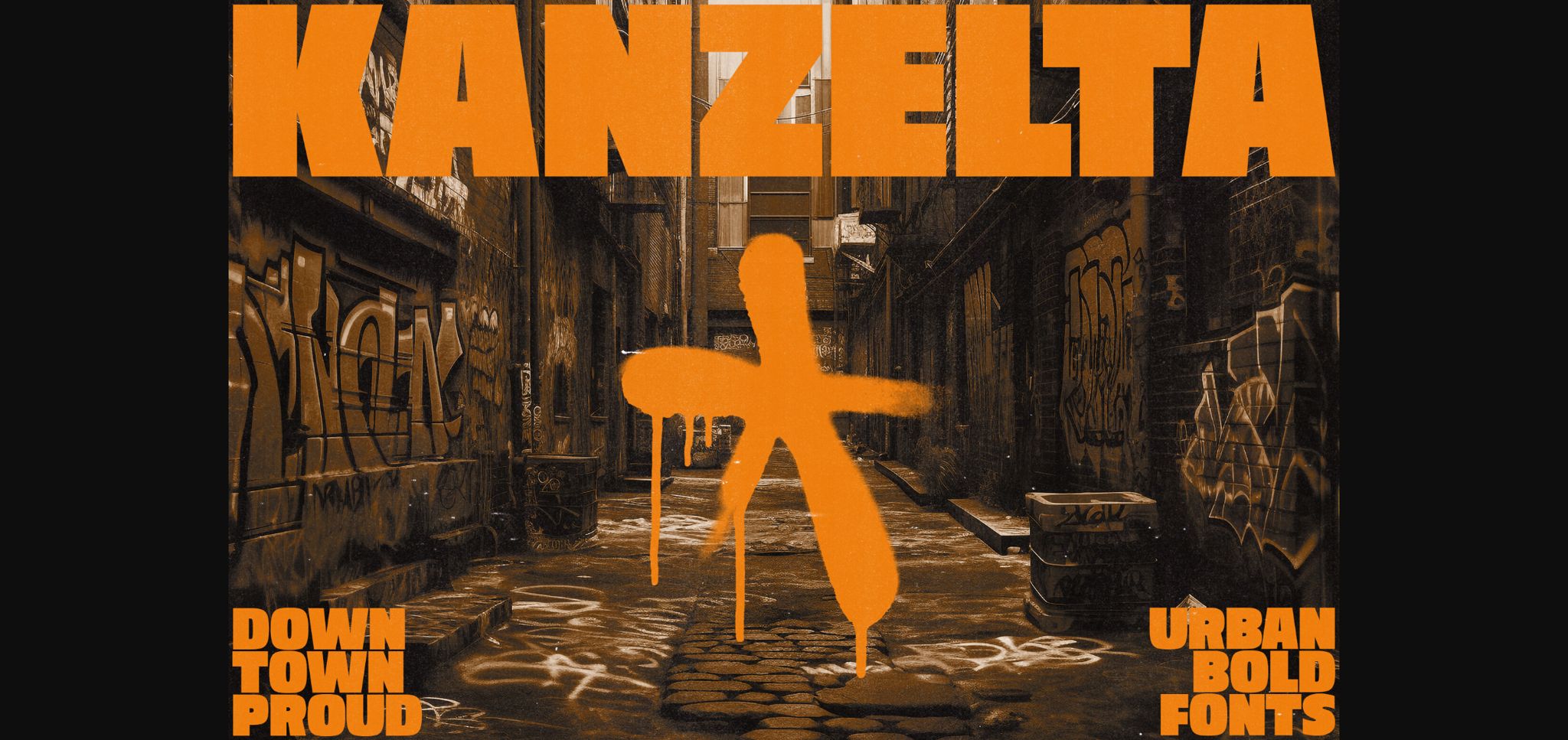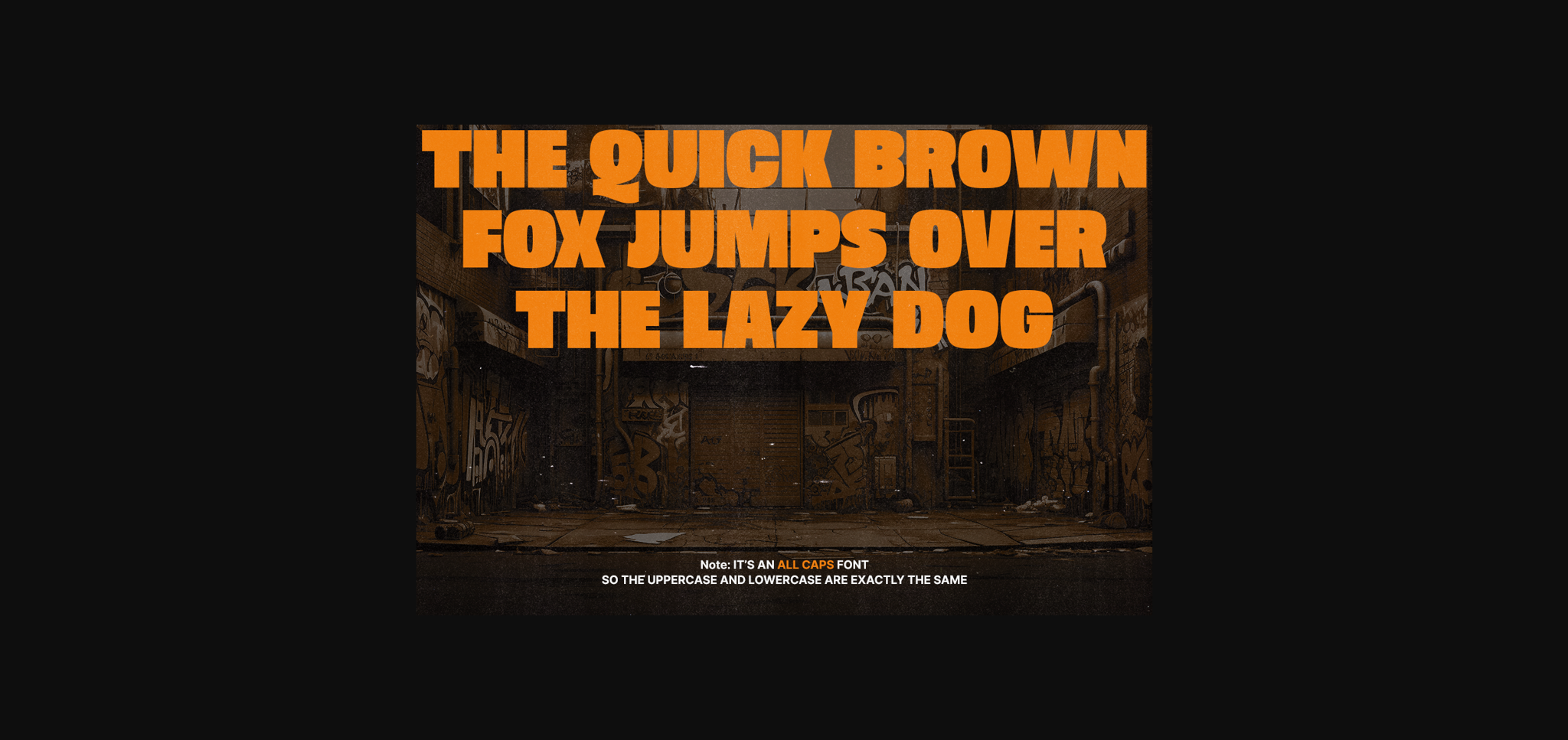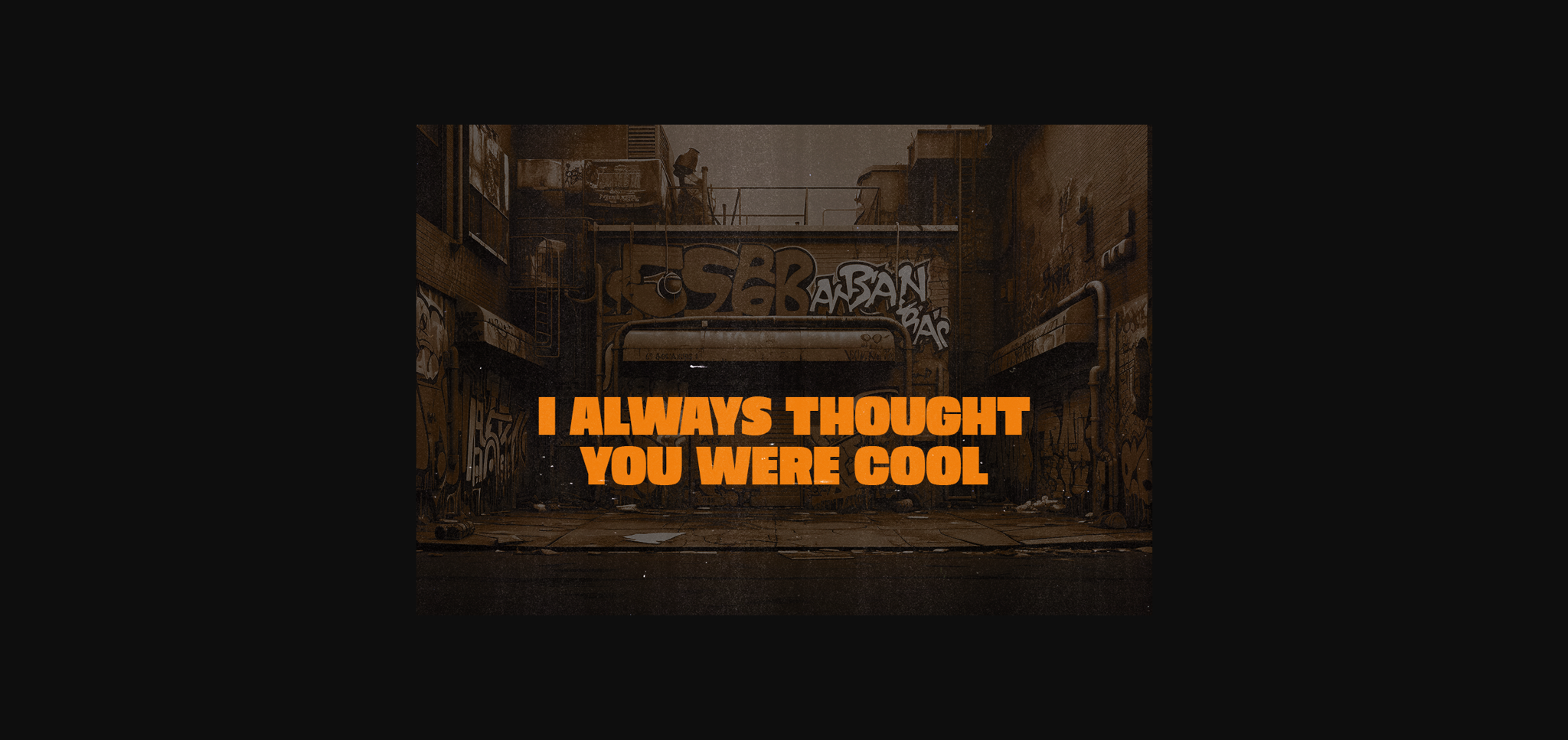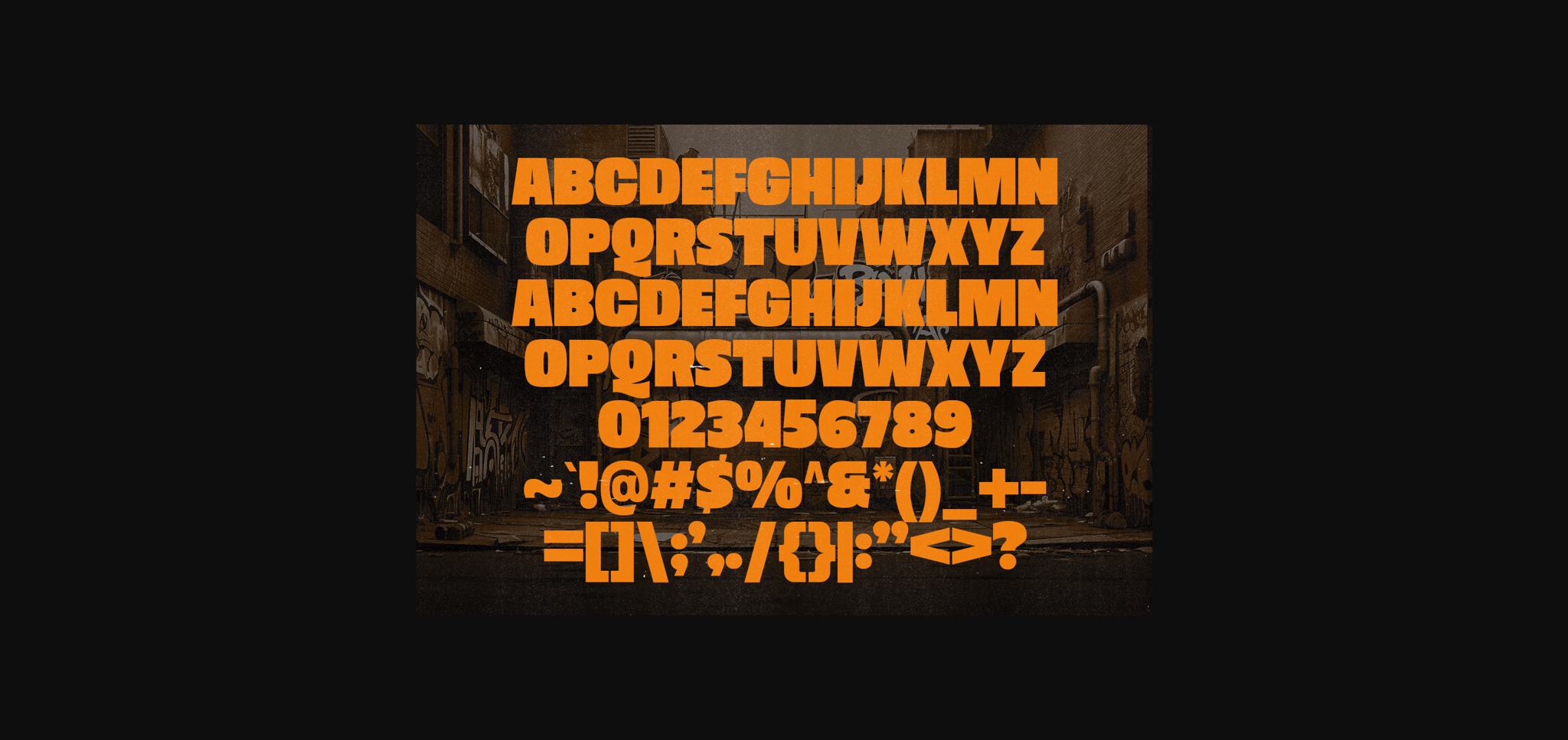
Kanzelta Font
About Kanzelta Font
Elevate your design game to the next level with Kanzelta – where modern meets bold in a perfect fusion of urban street vibes, retro logos, and contemporary graphic design culture!
Inspired by the dynamic energy of the streets, captures the essence of modern cities, bringing an edgy and contemporary feel to your designs.
Whether you’re creating a bold retro logo, an attention-grabbing street poster, or a sleek contemporary graphic design piece, it adapts effortlessly to your creative vision.